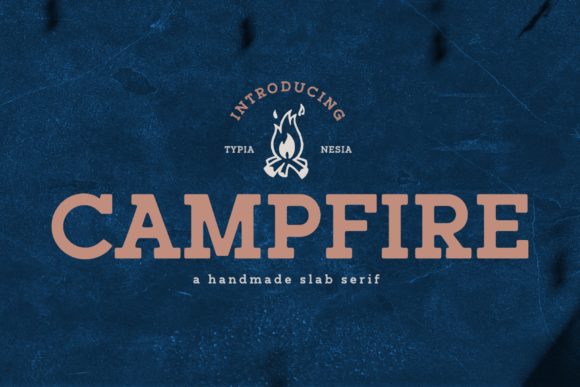
Are you in search of the perfect font to make your blog title stand out? Look no further than Campfire Font, created by the talented team at Typia Nesia.
This slab serif font is the ideal choice for anyone looking to make a bold statement with their typography. Its strong and sturdy appearance is perfect for capturing attention, while its neat and beautiful arrangement of letters ensures readability and legibility.
With Campfire Font, your blog title will look outstanding in both formal and non-formal designs. Its versatility makes it the perfect choice for a wide range of topics, from serious business blogs to fun lifestyle and fashion blogs.
But Campfire Font isn't just a pretty face. Its keyword-rich design ensures that your blog title will be easily searchable and discoverable by users looking for the best font for their needs. And with its emotional impact and creative flair, it's sure to make a lasting impression on anyone who sees it.